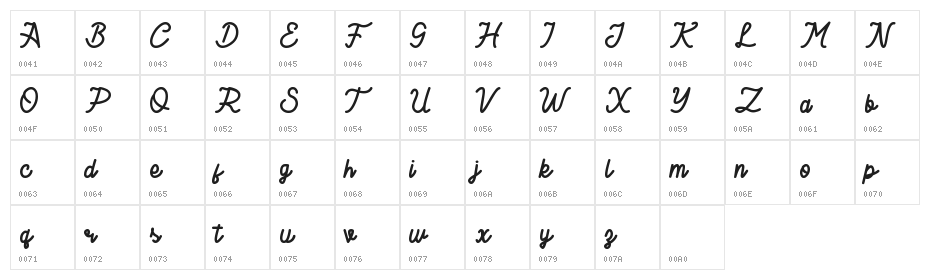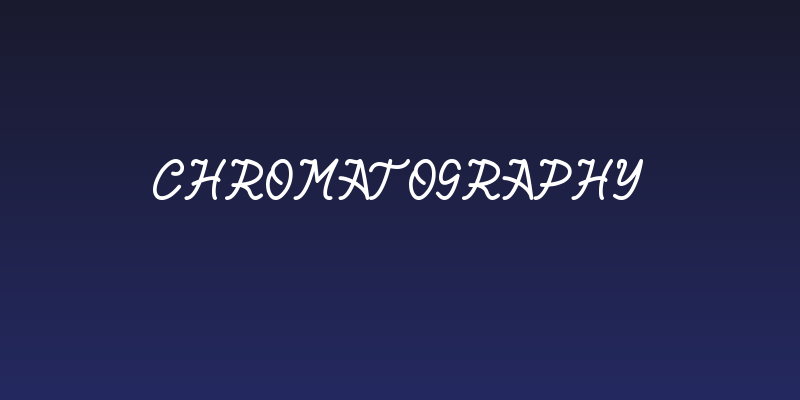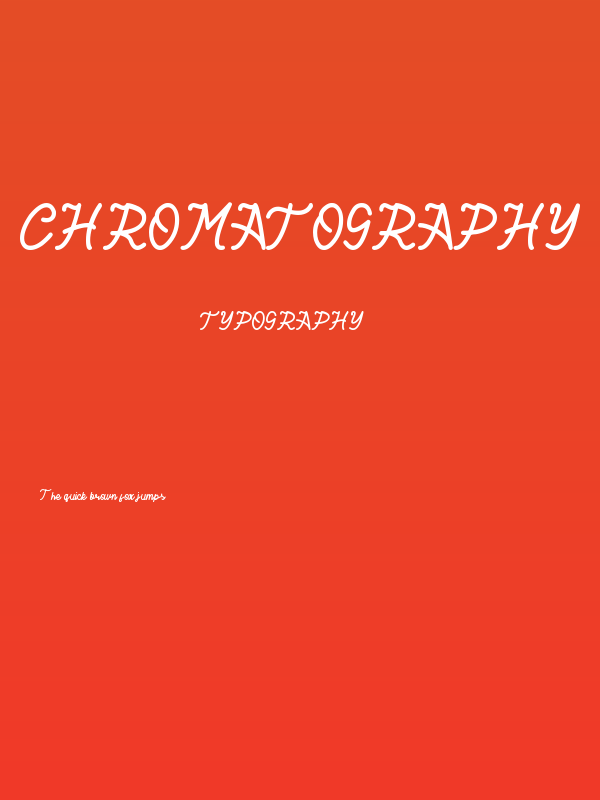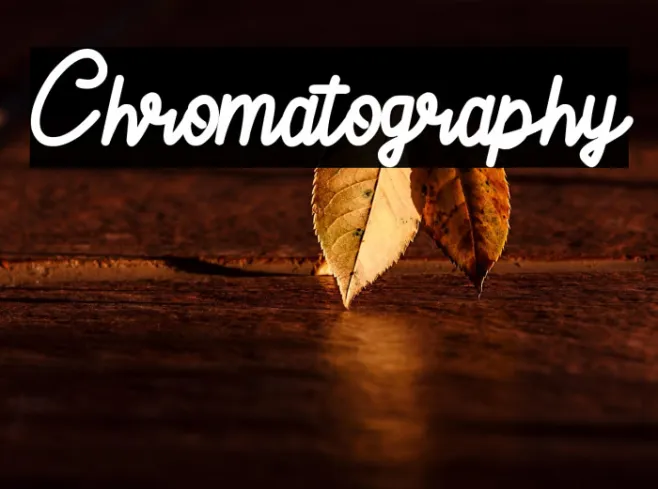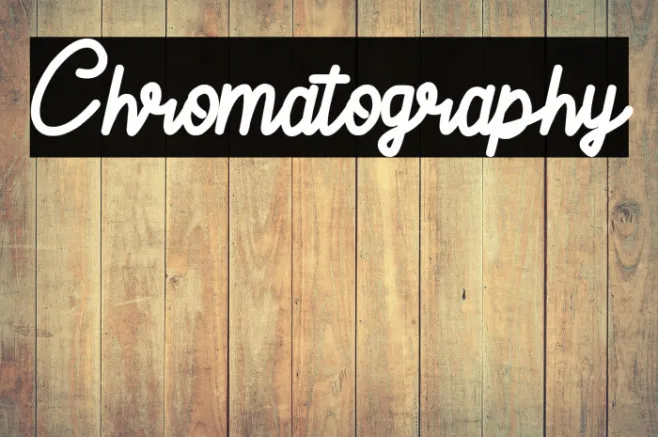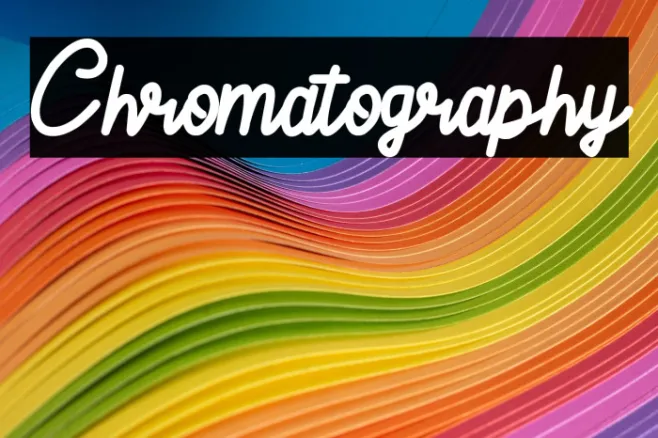
Chromatography Font
Chromatography Description
This font showcases a dynamic and fluid script style, characterized by its elegant cursive strokes and smooth connections between letters. The uppercase letters exhibit a graceful flow with a slight slant, giving a sense of movement and sophistication. The lowercase letters maintain a consistent rhythm, with rounded forms and a harmonious balance. The font's design is both playful and refined, making it versatile for various applications. Its bold weight adds emphasis and presence, while the consistent stroke width ensures readability. The overall aesthetic is modern yet timeless, suitable for creative and formal uses alike.